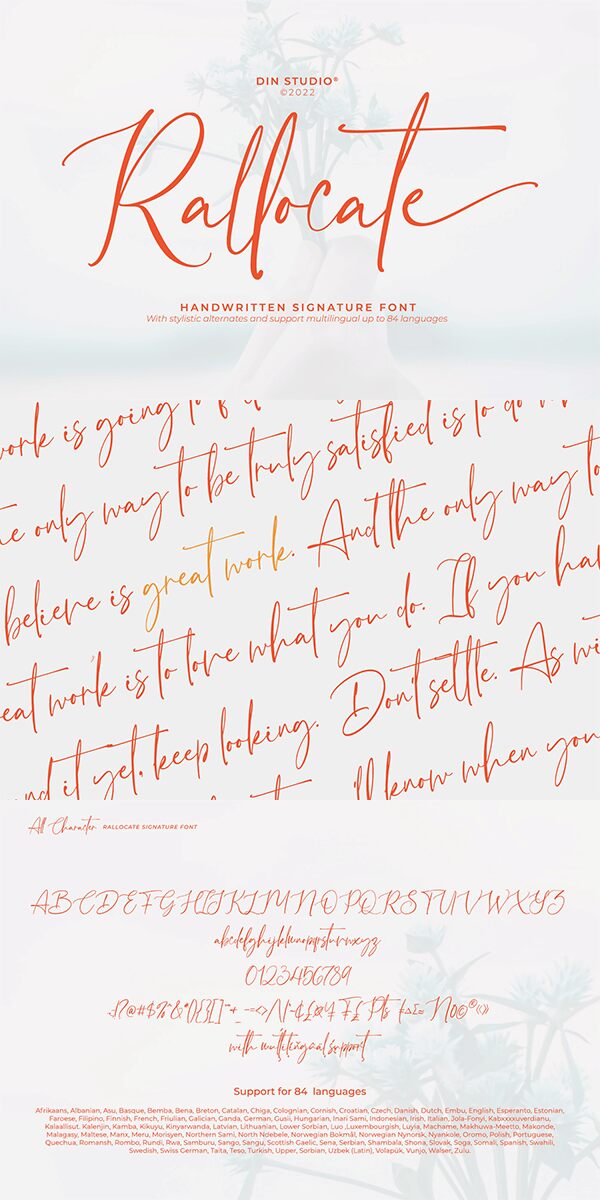
Din Studio presents Rallocate, a brilliant handwritten script font that will elevate your design to new heights. With its light weight and signature-like style, Rallocate boasts beautifully contrasting thick and thin strokes, exuding elegance in every letter. Whether it's in the header or smaller text, this font is perfect for any project.
Its versatility shines through as it enhances posters, logos, book covers, brandings, headings, printed products, merchandise, quotes, and social media campaigns. The possibilities are endless! Discover the magic of Rallocate and unlock your creativity today.